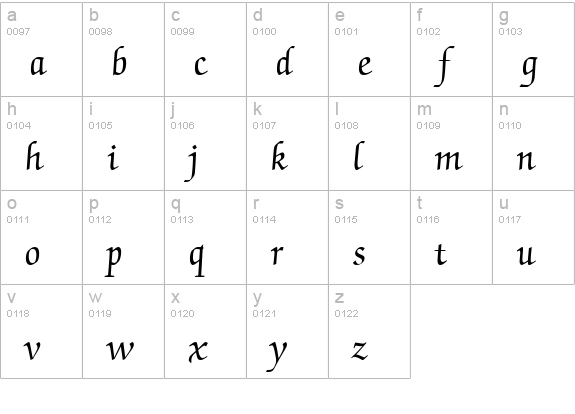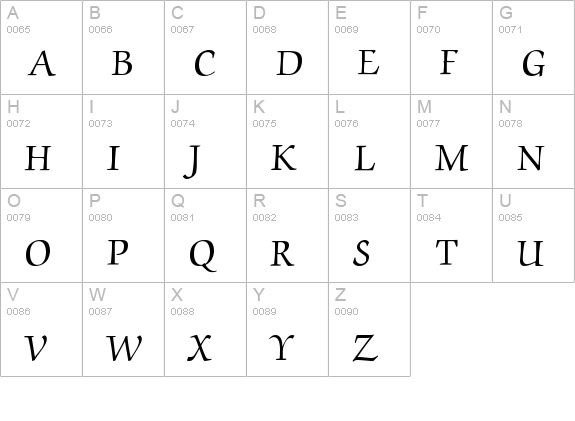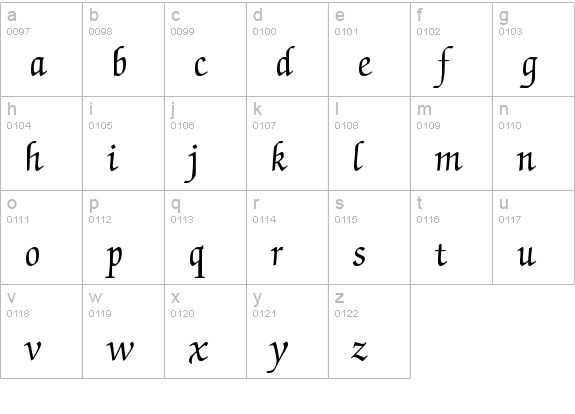
Chancery Script SSi Font Details
Chancery Script SSi font is a beautifully elegant typeface that exudes sophistication and charm. Its flowing strokes and delicate curves give any design a touch of class and refinement. Perfect for formal invitations, branding materials, and luxury packaging, this font adds a luxurious touch to any project. The best part is that Chancery Script SSi font is available for free download at FontsMarket.com. Whether you're a graphic designer looking to elevate your projects or a business owner in need of a stylish font for your marketing materials, Chancery Script SSi font is the perfect choice. Download it today and add a touch of elegance to your designs!